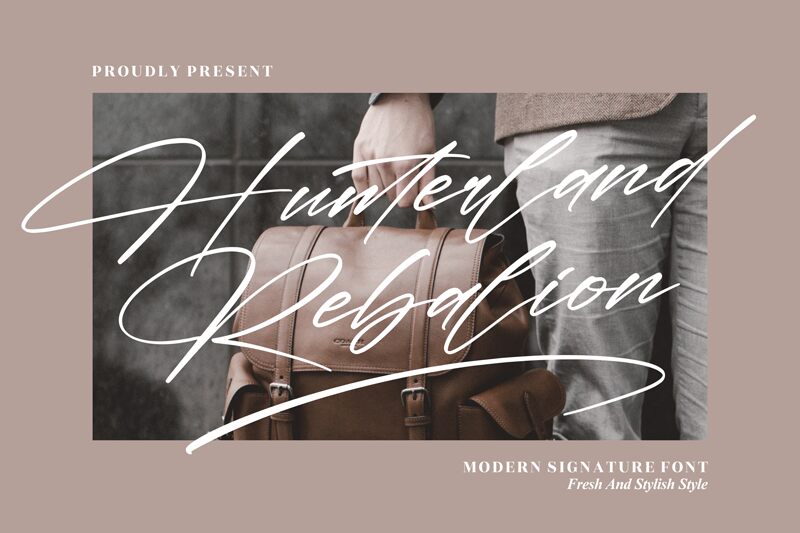
Hunterland Rebalion
Hunterland Rebalion, a creation by Letterena Studios, is an exquisite handwritten font that embodies elegance and sophistication. With its light weight and expanded width, this signature-style typeface adds a touch of refinement to any project.
Perfect for wedding invitations, luxury branding, or high-end fashion magazines, Hunterland Rebalion exudes a sense of exclusivity and grace. Its fluid strokes and unique character designs make it an ideal choice for those seeking a distinctive and memorable aesthetic.
Elevate your designs with the timeless beauty of Hunterland Rebalion.